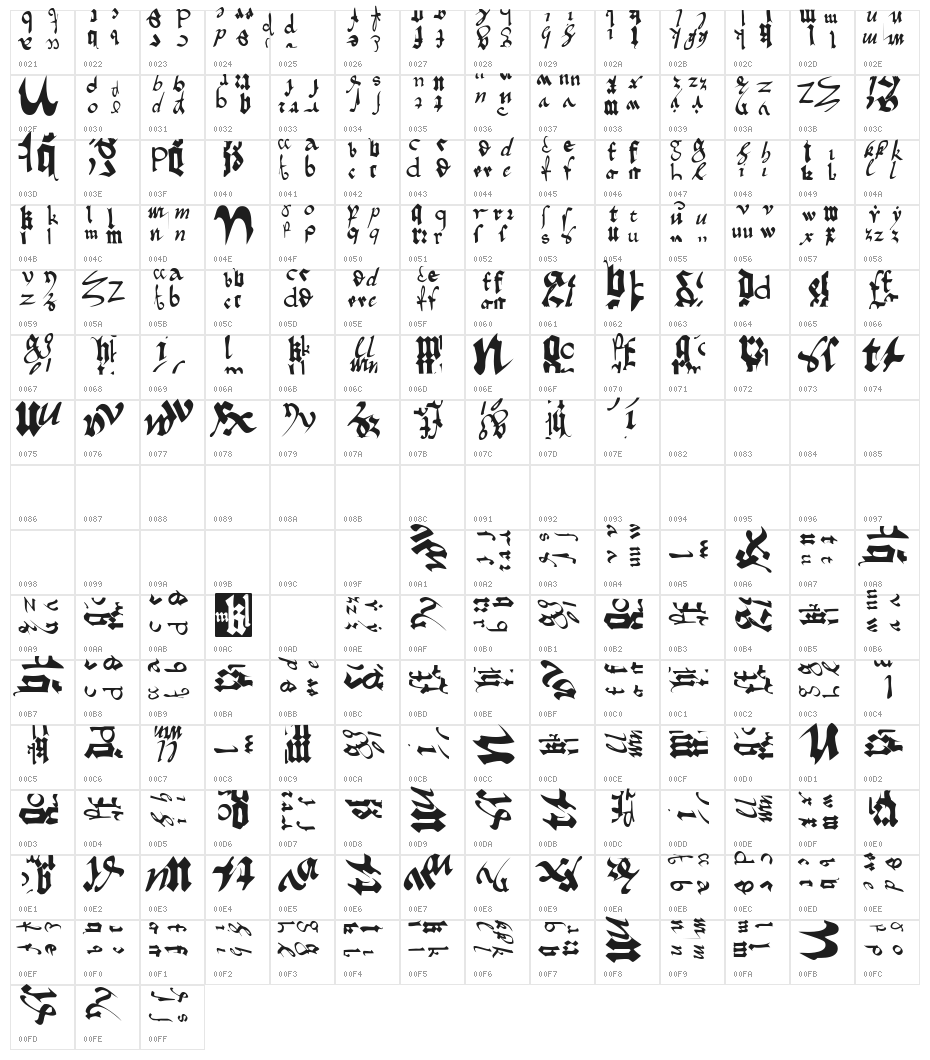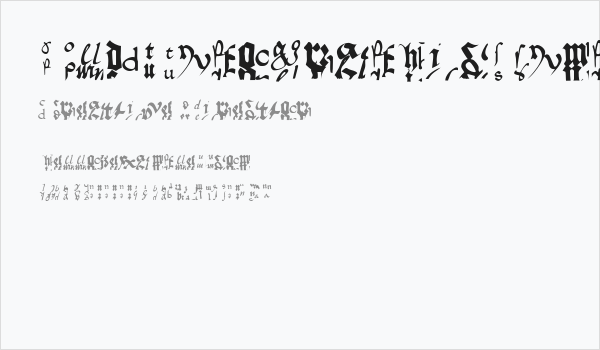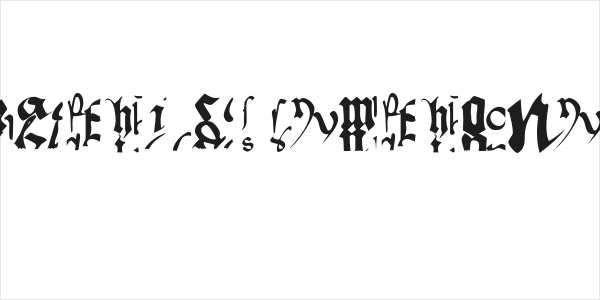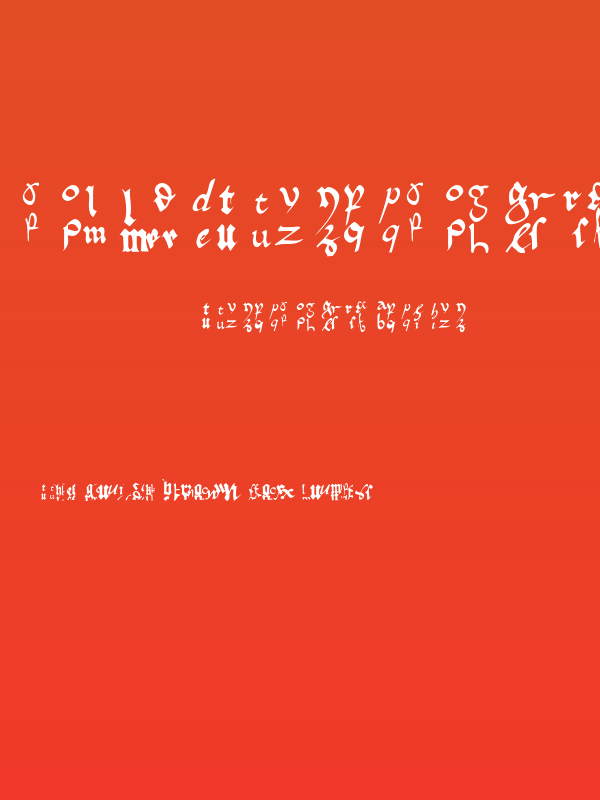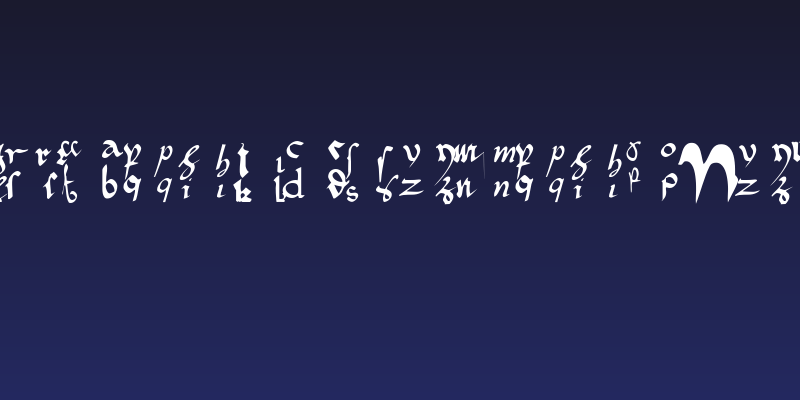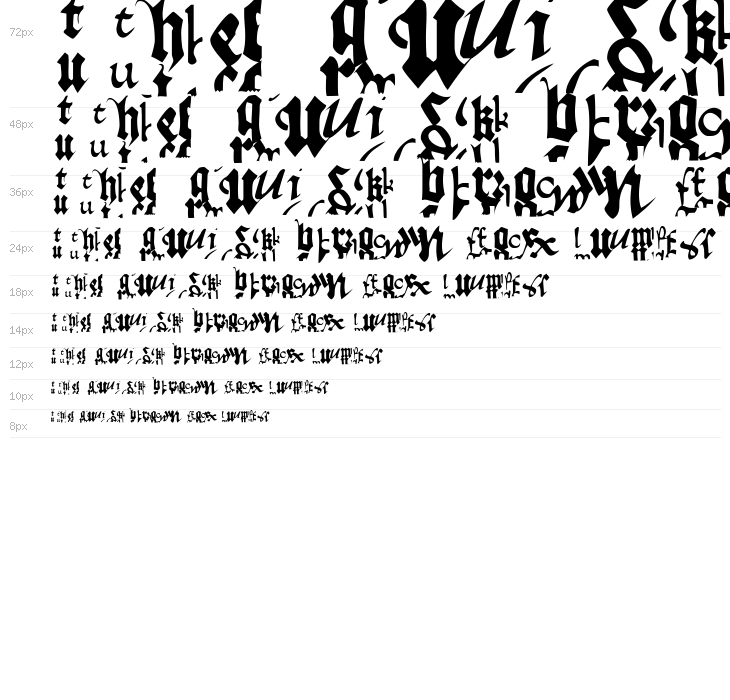
OldTypographicSymphony-Regular Font
OldTypographicSymphony-Regular Description
This font exudes a classic and historical charm, reminiscent of medieval manuscripts and ancient texts. The characters are intricately designed with elaborate flourishes and sharp angles, giving it a distinctly Gothic appearance. The uppercase letters are bold and commanding, while the lowercase letters maintain a consistent style with slightly more subtle detailing. The numerals and special characters are crafted to match the overall aesthetic, ensuring a cohesive look across all text. This font is perfect for projects that require a touch of antiquity and elegance, such as historical documents, themed event invitations, or fantasy book covers.
| Use Case | Headlines, Logos, Decorative text |
| Proposed Projects | Ideal for historical documents, themed event invitations, fantasy book covers, and decorative signage. |